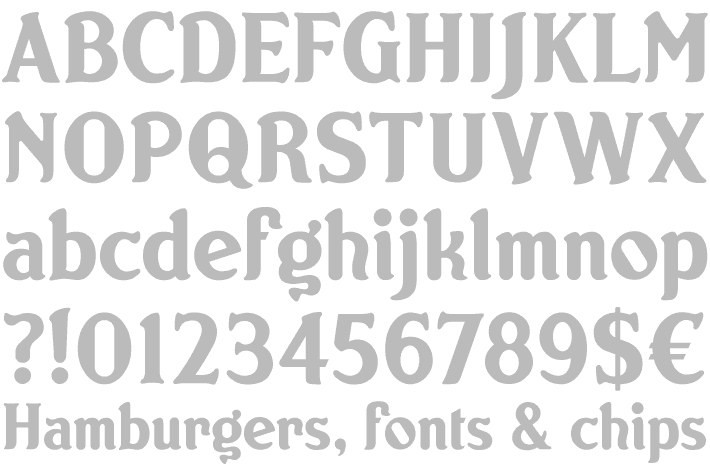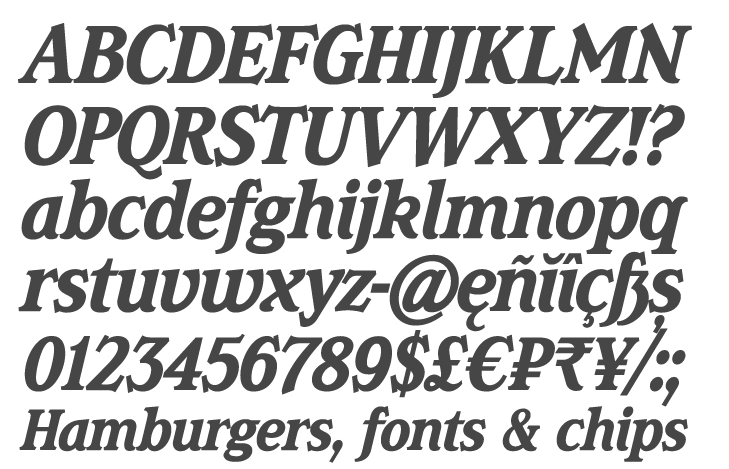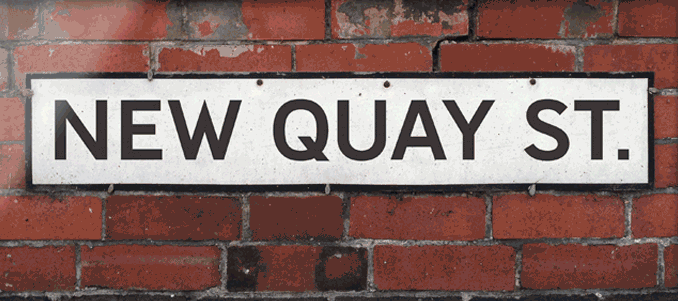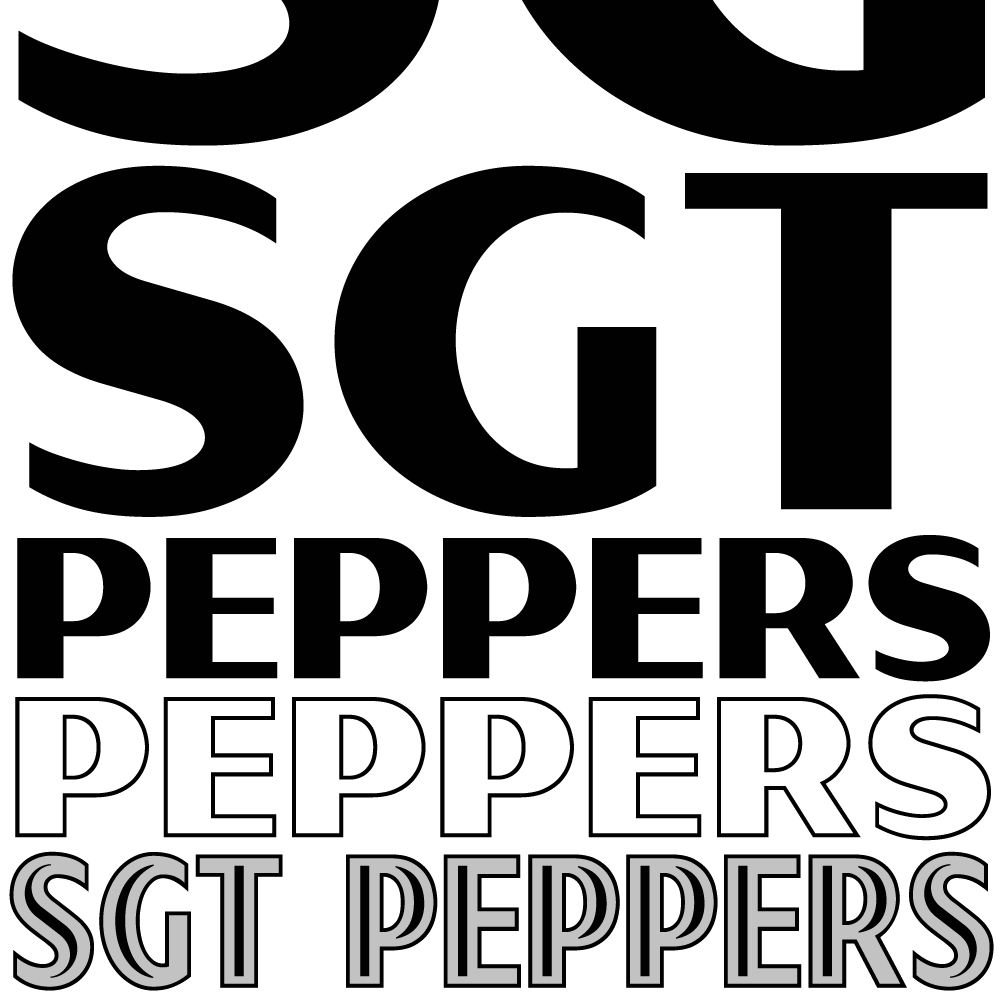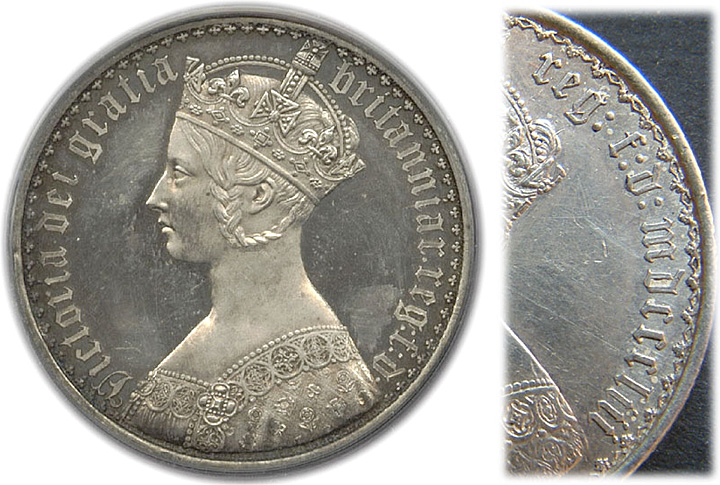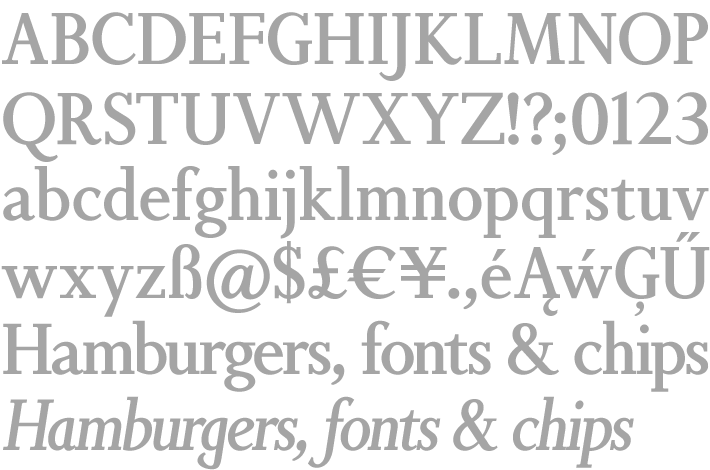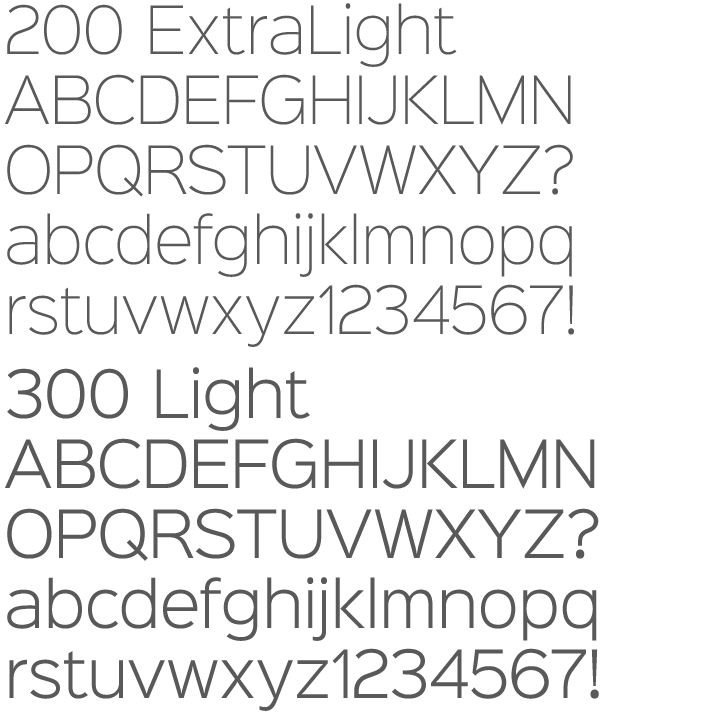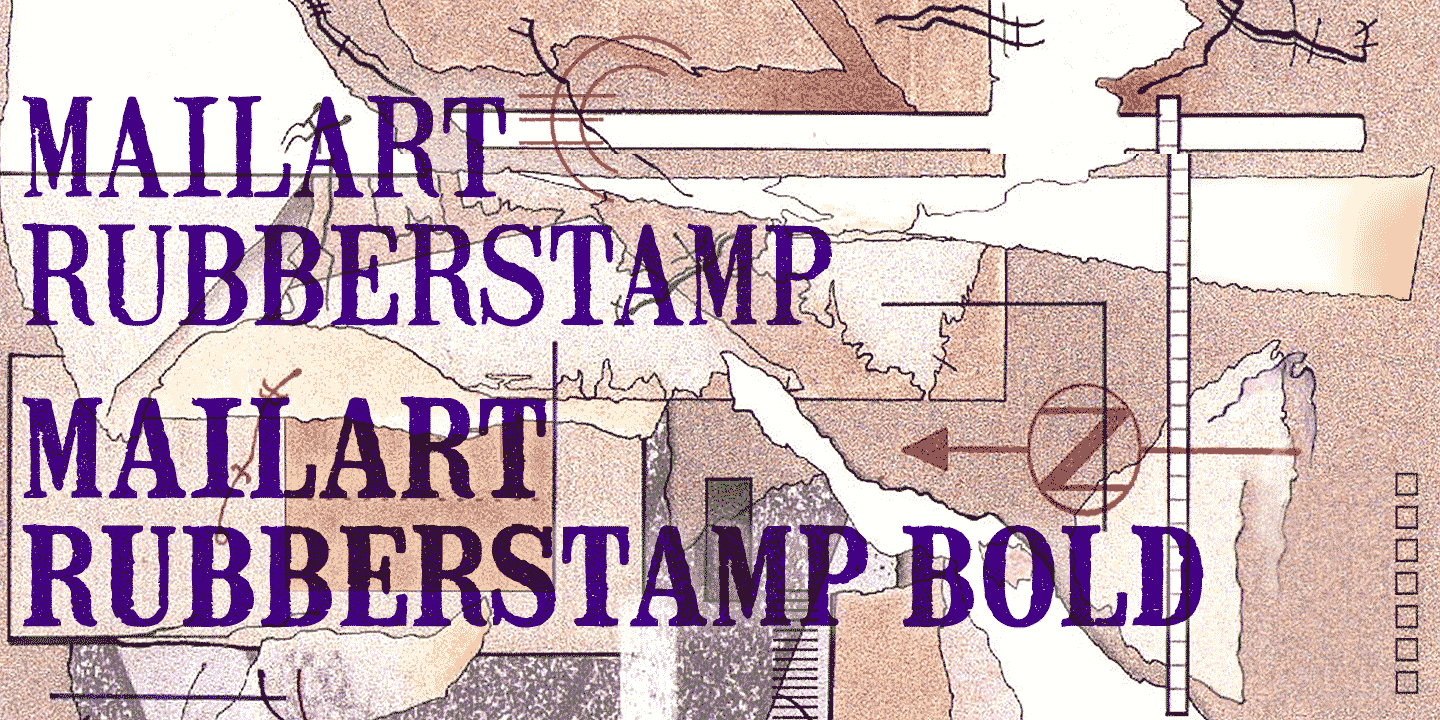
Keith Bates first became aware of Typography as a child through its expressive contribution to the things he valued – comics, chewing gum cards, packaging, film and television titles, posters, coins and stamps.
Working as a high school Art & Design teacher throughout the 1980s and 1990s, Keith had a good supply of Letraset, and later computer fonts. By the late nineties, Keith had become fascinated by the fonts of Ray Larabie, Chank Diesel, Fontalicious, and other enthusiastic and prolific fontmakers whose work was being disseminated freely over the internet, and who seemed to be part of a grassroots movement that had a subcultural excitement about it. Small type foundries were springing up across the globe. Discovering Fontographer in 2000 was Keith's admission ticket and the K-Type foundry was born.
He found inspiration wherever it occurred, often revisiting childhood and adolescent fascinations. K-Type's collection soon became quite eclectic, though a common thread throughout is a strong sense of time and place.
K-Type's Magica is a book and display face that is both distinctive and legible – clear letterforms and a generous x-height make Magica a good choice for text or titles. The typeface has elegantly chamfered serifs and a confident, vivacious character that is equally suited to formal and informal usage.
Keith writes "I grew up in Beatles-era Liverpool. I received an English Grammar School education with a typographical baseline of Times New Roman and smatterings of Eric Gill. I was attracted to music and graphic design, and was hugely influenced by American art and the counterculture of the late sixties. So I started to chart those influences in the fonts I made. In a small way, perhaps they ascribe meaning to the erratic flow of interests and experiences that comprise my existence.... K-Type has grown into a collection of whatever’s fascinated me at different times. I often like to create my own versions of type designs that have signposted my life, such as the British car plate typeface Mandatory, Latinate based on a bus ticket font from childhood, Bank of England inspired by the chancery lettering on banknotes, or street nameplate fonts like Penny Lane and Deansgate. And last but not least, the Transport typeface which has quite literally adorned the signposts in my life."
This approach has resulted in a broad body of work that not only signposts intimate of personal experiences in Keith's life but also important historical and cultural cues we can all relate to. My first journey through the K-Type catalog evoked memories of my fathers shed (more specifically greasy motorcycle parts!) Black Knight Licorice straps and tangy fruits at the cinema as a child and nostalgic memories of record sleeves and album covers from my youth.
Deansgate and Deansgate Condensed are based on the clearest and most distinctive of the sans-serif letterforms used on Manchester street nameplates, and easily identified by a pointy Z and pointed middle vertices on M and W.
The Bold weights of each family are perfect for signage, with almost monoweight strokes designed for easy reading, close up or at distance, and with the legible, slightly ’squarified’ round shapes normally associated with grotesque faces. The new lowercase tips the hat to the Transport fonts, and the regular weights transfer the clarity of the Bold faces to Deansgate’s text fonts which are ideal for use on the web or in print. Each family also includes an Italic and a Bold Italic.
You mentioned that you’re constantly learning more about typeface design and understand the importance of being a life long learner. I really value the act of making to learn and am interested to hear about your learning process! Can you give us an example of a lesson learned through mistake or failure with a typeface?
I’m self-taught, I learned on the job, so it just seems natural to continue learning. I flit between reading books about type and Terry Pratchett novels. I’m close to finishing all of the Discworld series now, but there are plenty of books about lettering still to read and there is a huge amount of valuable information about typefaces on the web. I look back at my earliest fonts and see things I wouldn’t do now, drawing diacritics incorrectly and misaligning characters, I only recently noticed I’d put the two Thorn glyphs in the wrong positions in one early font. I used to miss out uncommon characters but now I’m very fastidious about supplying a full repertoire of glyphs, there are over 400 Latin Extended-A characters in all recent K-Types.
You note that you find yourself striving for unattainable perfection with a compulsive urge to make each font better. Do you ever revisit and update previously released fonts based on your gained knowledge from a new/current project? Or once a Typeface is published do you see it is static and instead apply the new knowledge to your next projects moving forward.
Static would be the ideal. I try to be meticulous about quality control and never intend to revisit my typefaces, but good reasons often crop up. I recently changed the numeral 9 in Lexie Readable to a diagonal leg after several users emailed me their dissatisfaction with the original vertical legged character. Occasionally I’ll notice that something’s not quite right and decide to make changes, even though most users might not even notice. I also have a rolling programme of adding accented characters where the repertoire is incomplete and sometimes additional characters are requested. I also revisit typefaces to add weights that I feel might be useful or in response to requests.
Sgt Peppers Lonely Hearts Club is a typeface inspired by the capital letters on the bass drum in the Beatles’ Sgt Pepper album cover. The original lettering was hand painted by fairground artist Joe Ephgrave during March 1967 in an art deco style he called ‘futuristic’. The font completes the uppercase, adds a lowercase, and includes a full complement of over 400 characters.
Sgt Peppers Outline and Sgt Peppers Outline Fill are two fonts with matching spacing and kerning that can be overlapped for creating bicolor/multicolor effects and faux drums. The Outline and Outline Fill fonts do not contain lowercase characters, instead they comprise two weights of capitals as painted on the Sgt Pepper drum. The uppercase letters are in the wider style from around the outer edge of the drum, and the lowercase keys deliver the more condensed ‘Lonely Hearts’ inline style from the middle of the drum.
K-type demonstrates a significant investment in industry by generously offering some fonts for free. Mail art is a great example of you collaborating with community to create something for community. Can you tell us a little about how this curated collection of snail mail letters came about?
I’ve been involved in Mail Art since 1983, it’s a postal network of artists who exchange work and contribute to each other’s projects. Unlike the selective gallery system, Mail Art projects don’t involve a jury or fees, your work is not returned but you do receive documentation. Most project calls are open to anyone, but in 2004 I decided to make a Mail Art Typeface and sent personal invitations to around 150 of the mailartists I’d corresponded with who’d shown an interest in graphic work. I allocated each artist one character in the font allowing contributions to be made by post or by email, something I’m still trying to persuade the Mail Art community to embrace. I tailored characters to particular artists, often one of their initials. The @ symbol was contributed by a pioneer of internet usage, and I invited a conceptual artist to contribute the delete, he sent back an empty envelope. The resulting freefont is a playful and punky mismatch of styles into which I tried to inject a modicum of cohesion.
150 snailmail and email invitations were sent to mailartists with a graphic design flair asking them to send one character for this eclectic typeface. The font possesses a fragmentary unity that reflects the mail art process, use it anywhere that needs a little postal punkiness.
Often in lettering and sign painting the artist/designer takes liberties with conventional letter structure to create unique letter/word relationships. (lettering is a collection of beautiful letters). However in Type design the system demands each letter work with each other letter. (Type is a beautiful collection of letters). Last year you released The Sgt Pepper Fonts a family of layered typefaces that were inspired by the painted drum on the Beatles lonely hearts club album cover. I read that although you chose to correct Joe Ephgraves non-conventional weight distribution for the Y in your typeface you also included an alternate character that referenced the way Joe painted the original drum skin. I love that you honoured the artwork in this way! Working with layered display fonts like this is a really complex undertaking (not for the faint of heart!) what about the lettering this painted artwork compelled you to make this type system? And other than the Y and adding lowercase did you make any other stylistic/authorship decisions while constructing these faces?
I consider taking liberties my prerogative as fontmaker. I flipped the unconventional Y because I thought it looked better, but I also liked the idea of making the original Y available to designers - you can’t say his version was wrong, it was the sixties. I noodled with other letters as well, like the R where I thickened up the leg which seemed a little too spindly.
The fonts are a homage to Joe Ephgrave, but I was making the Sgt Pepper fonts that I wanted. Originally I just wanted to be able to recreate the bass drum but to change the lettering, that was the impetus to make the layerable Outline and Outline Fill fonts which were all uppercase like the original drum lettering. However, having finished off the rest of the capitals and creating punctuation and symbols, I felt compelled to make a third, full font that included a new lowercase too.
New Old English was inspired by two Victorian coins, the gothic crown and gothic florin, which featured a gothic script lowercase with quite modern-looking, short ascenders and descenders fitting snugly around the queen’s head or heraldic motif. The font is an attempt to capture the round-cornered softness of the die-struck lowercase blackletter on the coins. There are thicker hairline strokes than on normal Old English, a less sharp, warmer feel than lettering scripted with a pen, and circular instead of rhombic punctuation. To increase harmony and homogeneity between the cases, the uppercase is narrower and simpler than is customary, without the excessive width or antiquated flamboyance of the traditional blackletter.
Your typeface New Old English is based on the type circling Victorian era coins. I have no experience with a revival project like this but given how small the letters are reproduced on the coins and also the variance that comes with wear and use I imagine translating these marks and details was particularly challenging! Can you tell us a little about the design process for this font? And does your process change when working with tiny specimen as opposed to working with large specimen (for example your Transport new face).
The coins I looked at were in good condition, so it wasn’t that the rounded edges resulted from natural wear and tear, the die struck lettering had softness, in contrast to the sharp pen-drawn blackletters we usually see. I bought a replica gothic crown to examine but mostly worked from photographic enlargements, images culled from numismatic websites and eBay. Of course, the letterforms were three-dimensional raised surfaces, stem widths and edges were unclear, so once the basic shapes were established the challenge was to introduce common dimensions and draw each glyph as part of a coherent set of characters.
I love that you use a creative propulsion method to conceive and construct your typefaces – by drawing inspiration from small character sets, lettering and printed ephemera. This observational approach to the design of a typeface is something I teach in my alphabet is code workshops (and the way I teach myself about type!). Do you have any tips or advice for people wanting to create a typeface based on a single character or limited number of glyphs?
I really enjoy taking an existing handful of characters and completing the set, having some of the pieces of the jigsaw and letting imagination create the whole picture. You can find the codes and conventions of typographic tradition everywhere and they become your guide, your reservoir of routines to imitate or transform. Whenever I make a new typeface, I seek out the most similar existing alphabets, partly so I can copy shapes when difficulties arise, and partly to identify what I don’t like, what I don’t wish to repeat, and where my vision differs from that of my predecessors. I usually begin a font by pencil drawing letters in a sketchbook, though at times I’ll draw directly in Fontographer if the design is strongly geometric.
When I made the Norton typeface, based on just 5 letters from the motorcycle logo, I had real difficulty drawing valid forms for some lowercase letters. I’d found Paul Lloyd’s Duvall font, so I emailed Paul and asked him if I could borrow some of his lowercase shapes and he kindly agreed. Norton isn’t a copy of Duvall but you can certainly see the influence.
Norton is a full character set based on the five letters in the famous Norton Motorcycles logo. K-Type has attempted to remain true to the spirit of the original identity, whilst updating the face, particularly the upper case, to sit more comfortably in contemporary usage.
K-Type’s Norton has been featured on The Daily Show! That's significant exposure and must have been super exciting (and rewarding to see) do you have any other examples of your fonts in use that you can share?
It’s really nice to see K-Type fonts in action. I keep finding Norton in unlikely places, most recently on a book cover about cycling. Every supermarket trip my eye drifts smugly to the Greek yoghurts where Müller use Dalek for its Hellenic quality. On holiday in Kefalonia last summer we noticed that Dalek also appears on Greek t-shirts. Mailart Rubberstamp crops up a lot in labelling and shop window displays. Mandatory is being used for car registration plates in Brazil. Predictably, Keep Calm is everywhere, and not just on the ubiquitous poster lookalikes, we recently found it used on fabric shopping bags at Strand Books in New York.
Non Solus, the first digital version of Eric Gill’s ‘Solus’ of 1929, is now offered in four weights, each with a free italic. The typeface is uncluttered and elegant, more modern and less fussy than Joanna, Gill’s other slab serif, and also possessing greater warmth. The Non Solus family brings a forgotten classic back to active service and you can read the story behind the revival in the K-Type Kernel.
Top: Gill’s sketch for Solus. Bottom: Monotype Serious Nº 276, Solus, from “The Specimen Book of Monotype Printing Type”, Vol. 2. (via Klim)
I think its marvellous you have revived Gill's Solus as the K-Type Non Solus and note that you did revisit this particular face to add more weights and refine the design based on new high resolution printed specimen of Solus, honoring your eye as you interpreted details... Given Monotype’s recent Gill revivals and the current popularity of his work do you think the opportunity (or desire!) for you to keep developing the Non Solus family will arise as more samples come to light/become available?
At some point I expect Monotype to make an official revival of Solus. When Gill designed it I think it was considered to be too light for commercial success, and slab serifs generally regarded as too Victorian, but I think typefaces often have more than one time. Robin Nicholas’s response to my enquiries politely warned me off giving K-Type’s Solus the original name, hence the ‘Non’ moniker. Sadly, he didn’t offer to send me any samples or original drawings or invite me down to Redhill for a cup of tea, I expect he is a busy man and Monotype are very protective of their archive. However, I’d been sent a good scan of the 48pt original from a kind typophile and was content to work from that. The slightly curved bracketing I observed on the printed serifs added warmth so I decided to keep them even though Justin Howes advised that they were probably not present in the original design. I don’t lose sleep about it, Non Solus is K-Type’s version of Gill’s forgotten font. It has a bolder Bold (the original seemed too similar in weight to the Regular), additional Light and Medium weights, and a new set of italics that Solus didn’t originally have.
Wes Wilson and Zabars are fantastic examples of your period inspired Display fonts. I love the unusual weight distribution and the playful white counter spaces in both of these typefaces. Do you think these delightful historic forms are always going to be regarded as retro? Or do you see them coming back around and predict these revival styles will carve out their own space in contemporary design culture?
Both letterforms you mention had already been brought out of retirement and repurposed for a different age. K-Type Wes Wilson was inspired by the psychedelic posters of the 1960s, but Wilson’s lettering was based on the Austrian Secessionist Alfred Roller’s graphic work from the early 1900s. And the Zabars font is like the bifurcated Tuscans used for Victorian circus and theatre posters. Gabriella Garcia recently wrote an article about Broadway typography which featured the Zabar’s lettering and included Steven Heller’s comment that the lettering is “classic but anachronistic. What it says about deli food is a mystery, but since they’ve owned it for so long the question is irrelevant.”
Sinkin Sans is a simple, pleasant, luxuriously proportioned and easy to read sans-serif, supplied in all 9 standard web weights, 100 to 900, plus italics, so the face is a comprehensive illustration of the CSS web font numerical scale.
Sinkin Sans is designed with tiny, inconspicuous notches that sink into verticals at the intersections of strokes, adding highlights to congested corners. The incisions make right angles appear sharper and improve definition in more intricate characters.
Sinkin Sans was created to be the web font for the 2014 K-Type site redesign, and to celebrate the launch the whole family of 18 fonts is gifted under the Apache 2.0 licence, absolutely free for Commercial and Personal use. And has been downloaded 160,000 times from Font Squirrel alone, as of early 2016.
Sinkin sans (free for both commercial and personal use) is your largest family to date and was created for comfortable reading in digital environments. Although when I first saw it I thought it was a nod to printed type. Were the inktrap like features a mechanical nod to analogue technology or were they driven by an aesthetic agenda to relieve the optical weight at connection points.
Even though Sinkin Sans was designed for web use, the notches were inspired by ink traps. The indentations weren’t made for aesthetic reasons and are quite inconspicuous. They’re a subtle attempt to make busy intersections a little less congested and to reinforce the sharpness of right angles by counteracting the blurring effect of anti-aliasing and halation.
Your Transport New and Motorway typefaces are beautifully constructed digital translations of the faces designed for British motorway signage. You acknowledge that these faces have subtle eccentricities which add to its distinctiveness, and drawing the New version involved walking a tightrope between impertinently eliminating awkwardness and maintaining idiosyncrasy. I found this particularly interesting to read as I have previously featured the work of a number of typefaces designed for dyslexic readers and many of these faces support some visual eccentricity as promoting legibility. Nathan Stevens typeface Literae (which defines type characteristics with the potential to improve dyslexic literacy) he also models transport signage. You have conducted your own research into this area producing your Lexie Readable face. What characteristics if anything do you think are transferable between type designed for large scale signage and type designed for accessible text?
I can’t claim to have researched legibility in great detail. However, when I was studying the Transport typeface I was struck by the generous letterspacing on road signs where ease of reading is undoubtedly helped by the loose spacing. I often give display fonts quite tight spacing but I consciously set K-Type Transport New a little looser, though the fonts would still need additional tracking to equal road sign looseness. When I made Lexie Readable, I looked closely at Comic Sans to understand the qualities which made that font so easy to read and concluded that a relatively wide spacing was a major consideration for easy reading at small type sizes too.
My screen font of choice is Verdana, I find it such an easy typeface to read. I don’t attribute that to its doubtless excellent hinting, I have a 4K screen so that shouldn’t matter too much, I think the superb readability comes in large part from its supremely comfortable spacing. I’m drifting towards thinking that readability, the way type is set out, is more important than legibility, the design of individual letters themselves, which might chiefly be down to personal preference, familiarity and cultural norms.
K-Type's Mailart Rubberstamp now has an additional Bold weight and complimentary Obliques. The typeface has also been updated with subtle outline improvements, a bigger repertoire of European accented characters, and more consistent, slightly tighter spacing; increase the tracking to recreate the more relaxed, rustic appearance of the earlier version. The fonts are derived from the individually rubber-stamped letters on printed and collaged envelopes received from mailartists, and the typeface Clarendon Condensed.
You have a fantastic resource on your website that describes your K-type development and build process step-by-step. It is full of excellent advice for people starting out with designing type. Do you have any other pearls of advice for people starting out with designing type and/or publishing fonts?
Thank you, that’s kind of you to say. I do enjoy writing Kernel articles about how fonts originated and explaining design details, particularly where typefaces have interesting backstories, it’s easier to talk about fonts that already have a social presence than the ones that evolve more from formal exploration. It was also fun to add the ‘Making Fonts the K-Type Way’ section for anyone just starting out fontmaking. As for offering advice, I think anyone who wants to design typefaces should choose a tool that makes creating glyphs as easy as possible. I’ve never regretted choosing Fontographer, it’s such a user-friendly program with highly intuitive drawing tools. It’s been making the task easier since 1986 and is even better since it became a FontLab product.
You are currently working in a digital environment but you use pencils as part of your design process and you used to be an art teacher prior to starting K-type so I am curious whether you have processes and mediums you miss working with, or new techniques or materials you would like to experiment with more or build into your practice?
I am happiest working digitally and pencil sketching ideas. I used to love screenprinting and carving rubberstamps but now I’m more fascinated by digital possibilities. I really enjoy creating the publicity posters and banners for the fonts I make, I got a special buzz from making the Sgt Pepper graphics showing my type heroes. I was a keen collagist in the heyday of Mail Art, and now I prefer to make collages in Photoshop.
You describe K-type as a collection of whatever is fascinating you at different times. What has you excited/interested at the moment and what are you working on right now?
I’m ‘between fonts’ at the moment. I’ll often embark on some research and actively seek out the next typeface project, but sometimes I’ll do something else completely and wait for the muse to strike. I’m in that latter frame of mind now, I’ve taken a few weeks off to restring and set up my collection of 14 guitars. But your questions have got me looking over old drawings and I can see a few ideas that might be worth developing. We have a city break in New York planned in a few weeks’ time so I’ll also be seeking out some inspiration there.